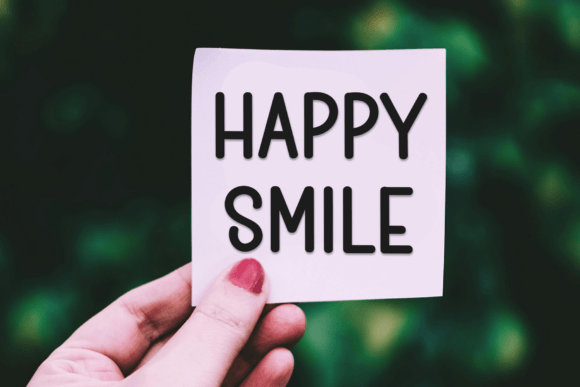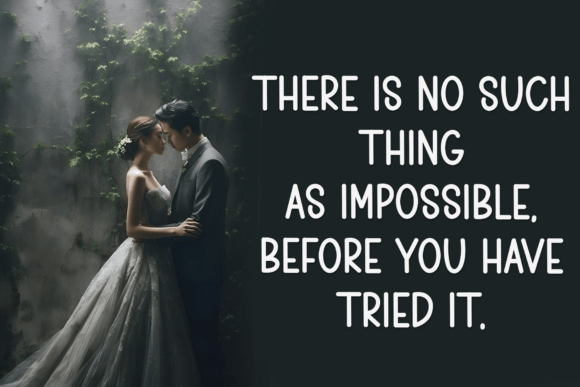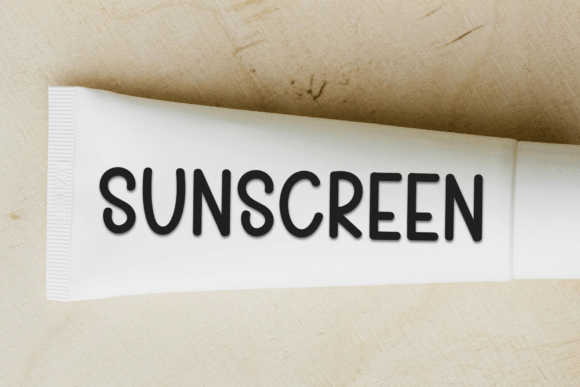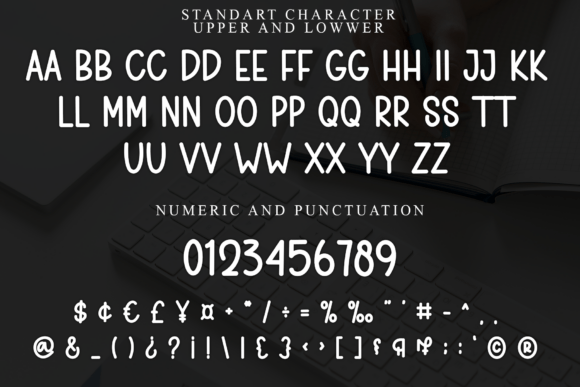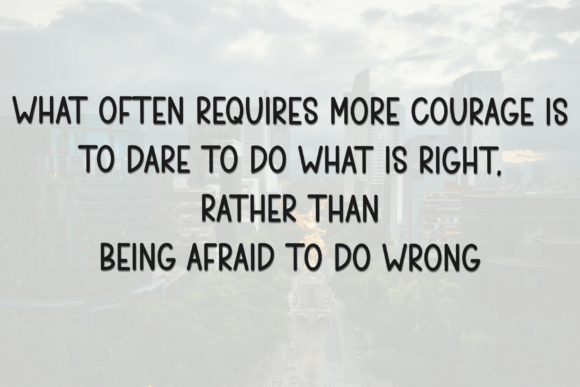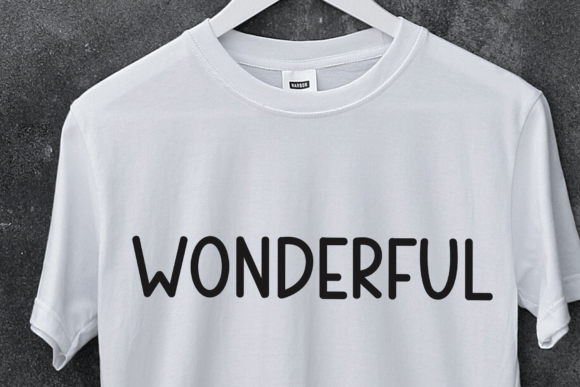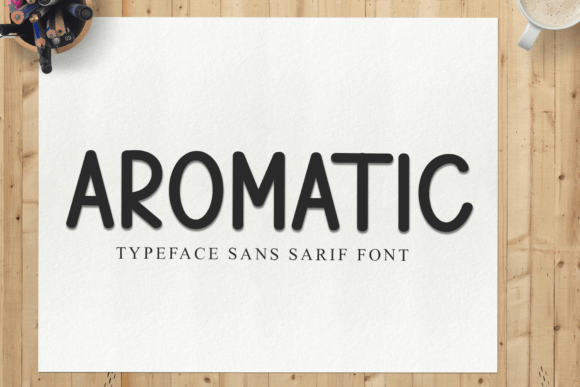
Aromatic Font: Elevate Your Design with Elegance and Sophistication
In the world of typography, fonts play a crucial role in conveying the tone and aesthetic of a design. Among the numerous fonts available, Aromatic Font stands out for its unique blend of smooth touch and beautiful strokes, offering a natural feel that can elevate any creative project. In this article, we’ll explore the features and benefits of Aromatic Font, and how it can be a game-changer for designers and crafters.
The Beauty of Aromatic Font
Aromatic Font is a very beautiful font, characterized by its smooth touch and elegant strokes. These features combine to give it a natural feel that can add a touch of sophistication to any design. Whether you’re working on a logo, banner, or social media graphic, Aromatic Font can help you create a visually appealing and cohesive look.
Versatility of Aromatic Font
One of the key benefits of Aromatic Font is its versatility. It’s suitable for a wide range of design projects, including:
- Banners: Create eye-catching banners for events, promotions, or announcements with Aromatic Font.
- YouTube Thumbnails: Use Aromatic Font to craft thumbnails that grab attention and entice viewers to click on your video.
- Logo Designs: Develop a professional and memorable logo for your brand with Aromatic Font.
- Wedding Invitation Cards: Add a touch of elegance to your wedding invitation cards with Aromatic Font.
- Clothing Mockups: Use Aromatic Font to create stunning clothing mockups for your fashion brand.
- T-shirts: Design custom t-shirts with Aromatic Font that make a statement.
Why Choose Aromatic Font?
So, why should you choose Aromatic Font for your design projects? Here are a few compelling reasons:
- Unique Style: Aromatic Font offers a unique style that’s not easily replicable with other fonts.
- Ease of Use: Aromatic Font is easy to read and works well in various design contexts.
- Customization: Aromatic Font can be customized to fit your brand’s specific needs and style.
- Time-Saving: With Aromatic Font, you can create professional-looking designs quickly and efficiently.
Tips for Using Aromatic Font
To get the most out of Aromatic Font, here are some tips to keep in mind:
- Pair with Other Fonts: Experiment with pairing Aromatic Font with other fonts to create a unique and visually appealing combination.
- Adjust Font Size: Adjust the font size to create visual hierarchy and emphasize key elements in your design.
- Play with Colors: Experiment with different colors to find the perfect match for your brand and design.
In conclusion, Aromatic Font is a beautiful and versatile font that can elevate any design project. Its smooth touch, elegant strokes, and natural feel make it an excellent choice for designers and crafters. With its wide range of applications, from banners and YouTube thumbnails to logo designs and wedding invitation cards, Aromatic Font is a valuable addition to any design toolkit. So, why not give Aromatic Font a try and see how it can transform your designs?
Whether you’re a seasoned designer or a crafty DIY enthusiast, Aromatic Font is sure to inspire your creativity and help you create stunning designs that leave a lasting impression.